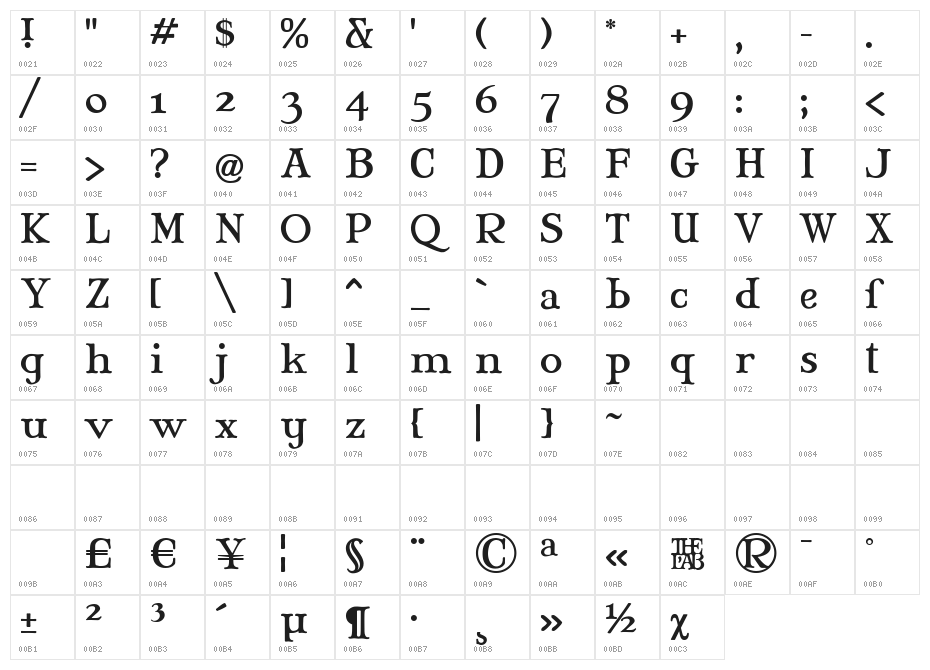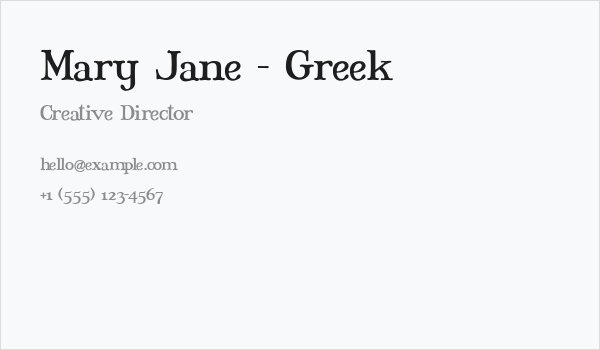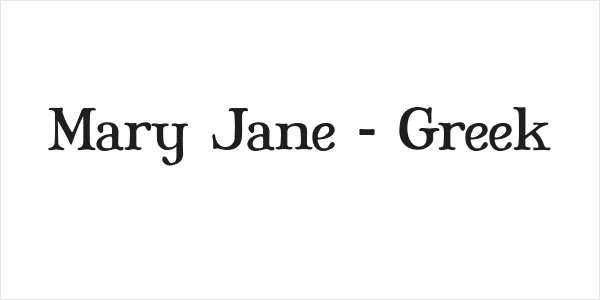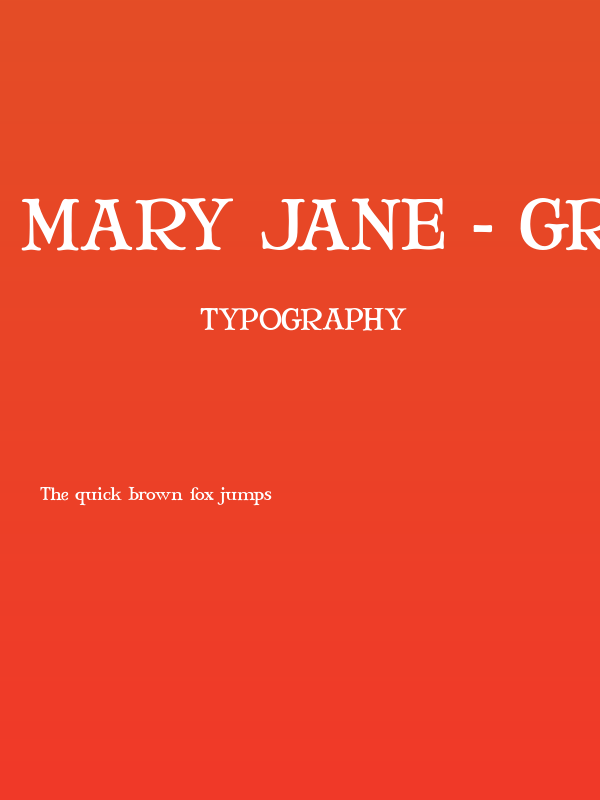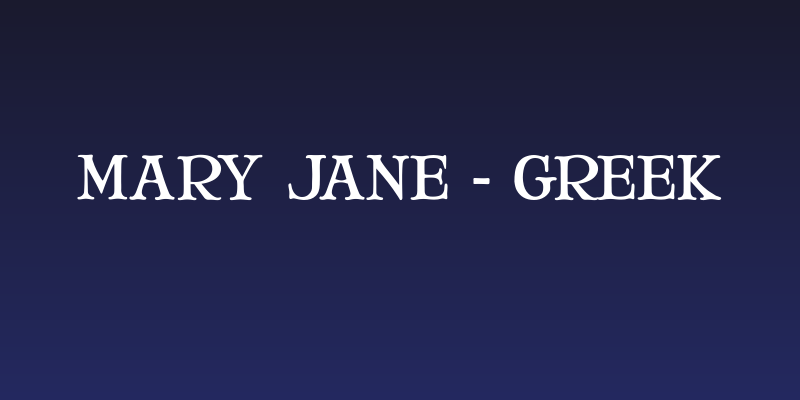
Mary Jane - Greek Font
Mary Jane - Greek Description
This typeface features a classic serif design with a touch of elegance and sophistication. The letters are well-proportioned, with slightly flared serifs that add a traditional yet refined appearance. The uppercase characters are bold and commanding, while the lowercase letters maintain a smooth and flowing form. The numerals are distinct and clear, ensuring readability. Special characters are designed with the same attention to detail, making them harmonious with the rest of the font. This font is versatile, suitable for both formal and creative applications, offering a timeless aesthetic.